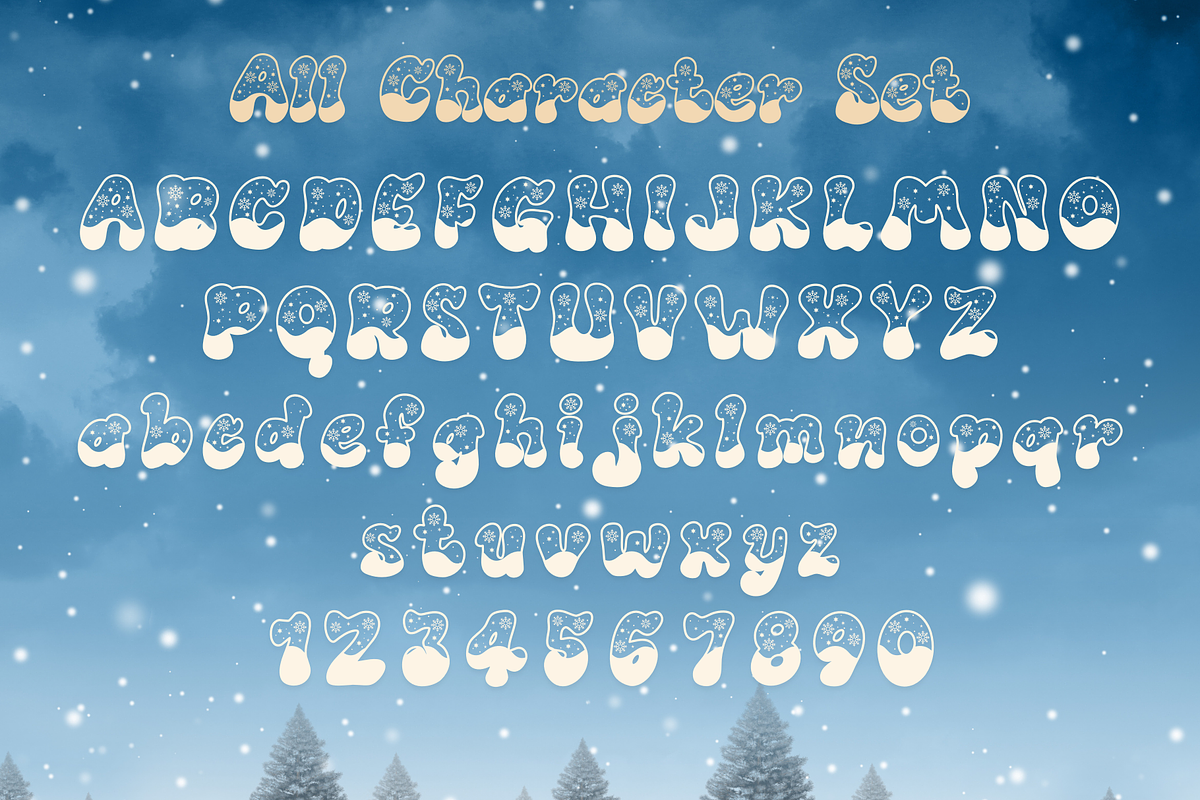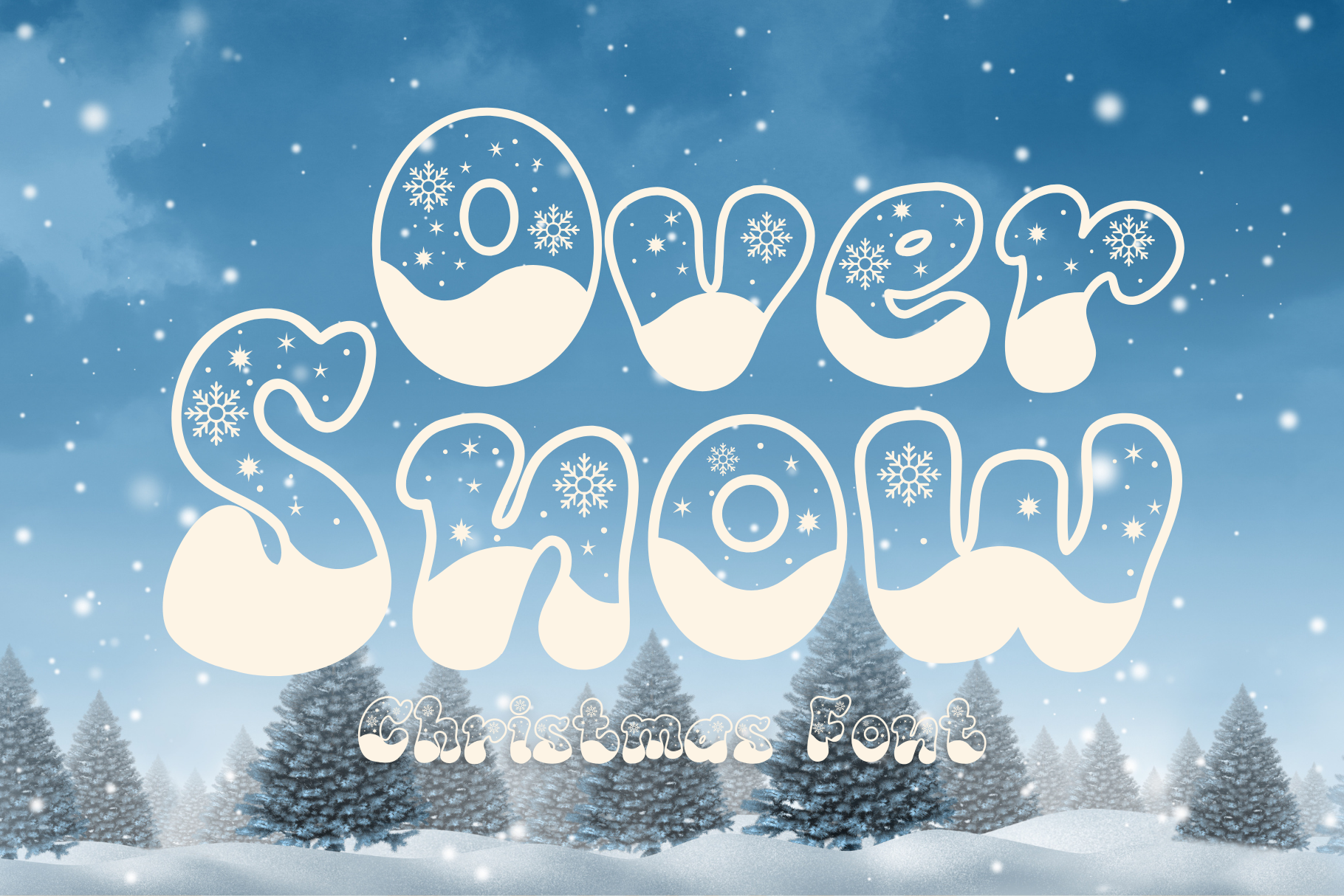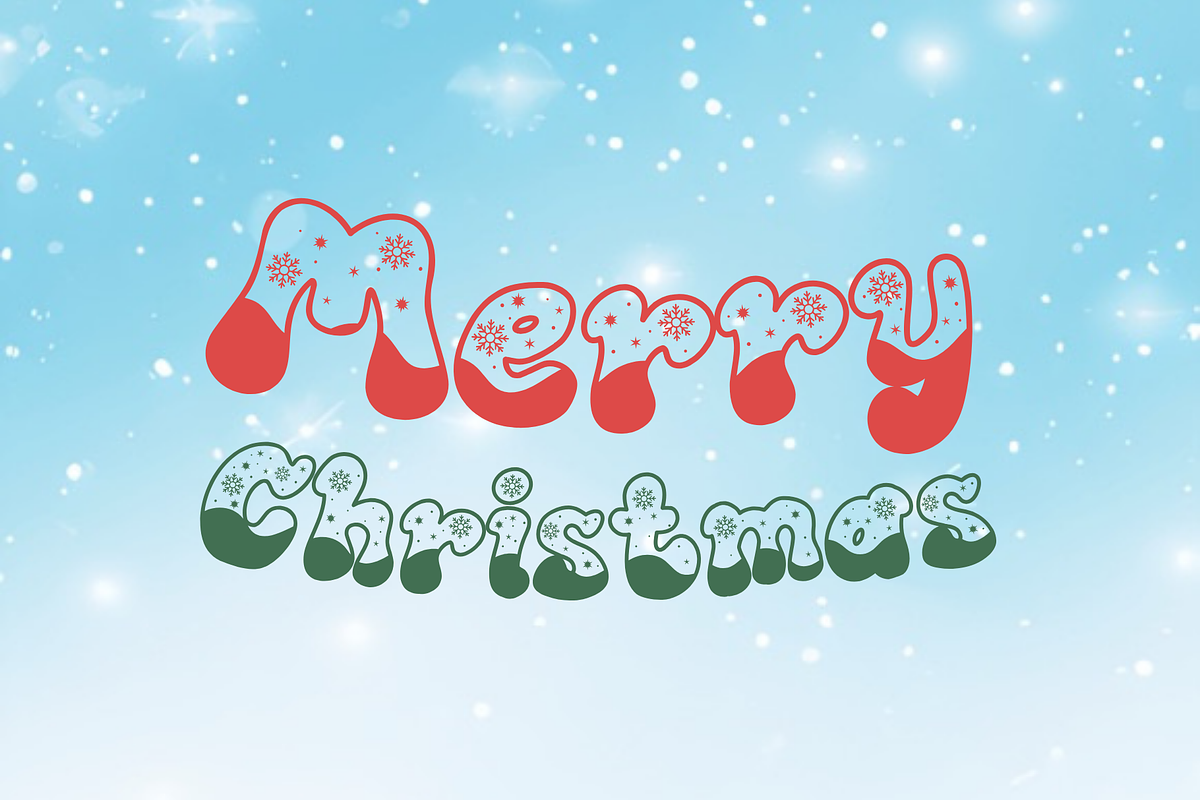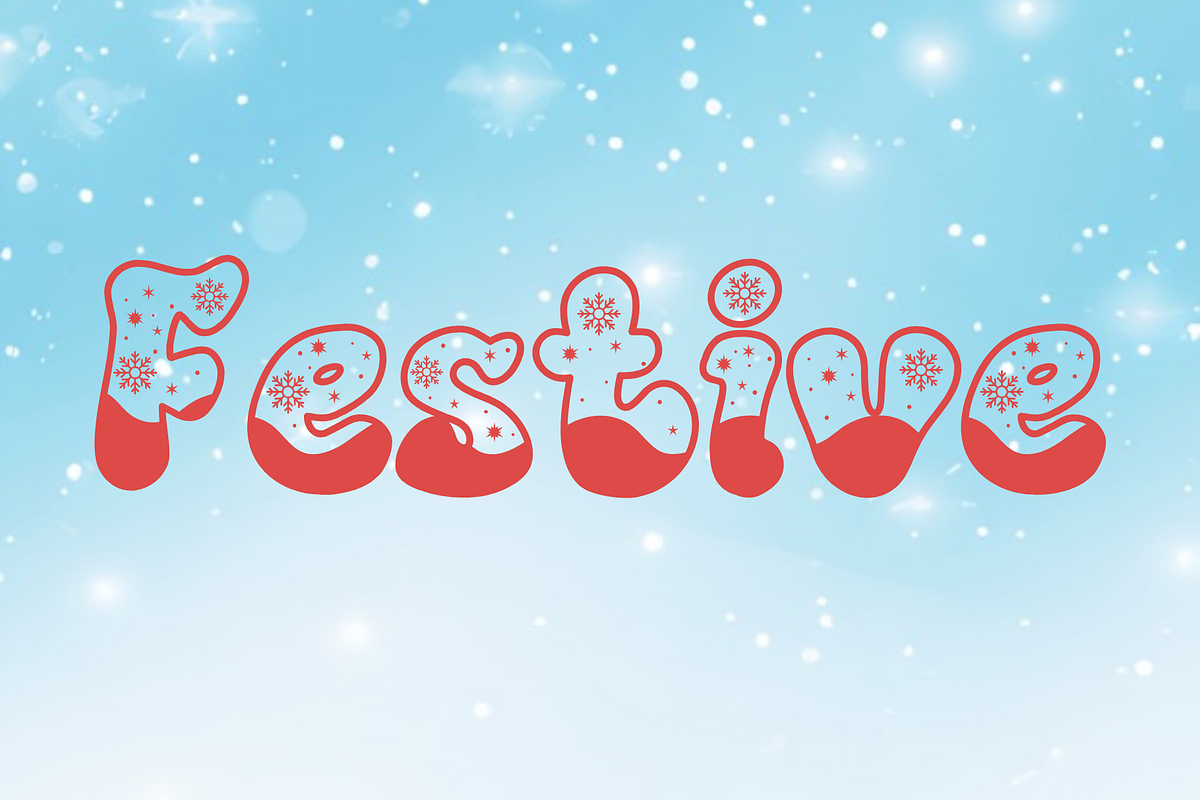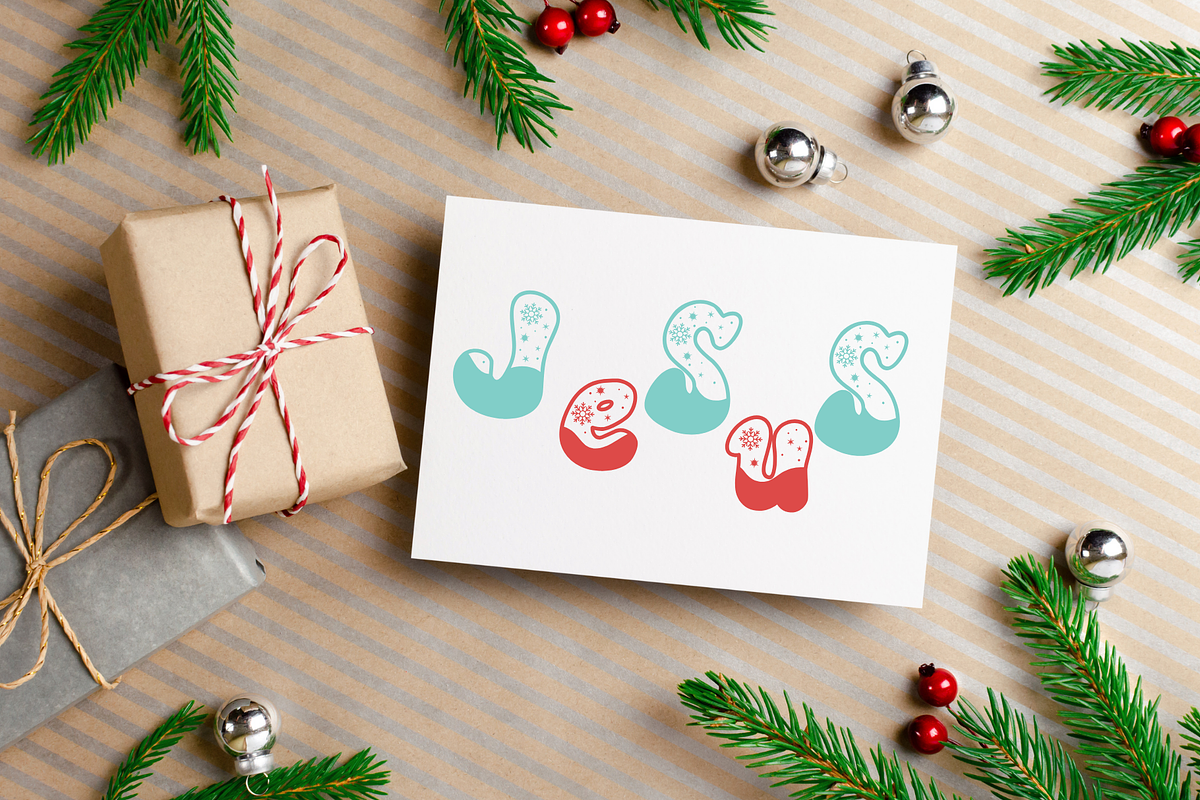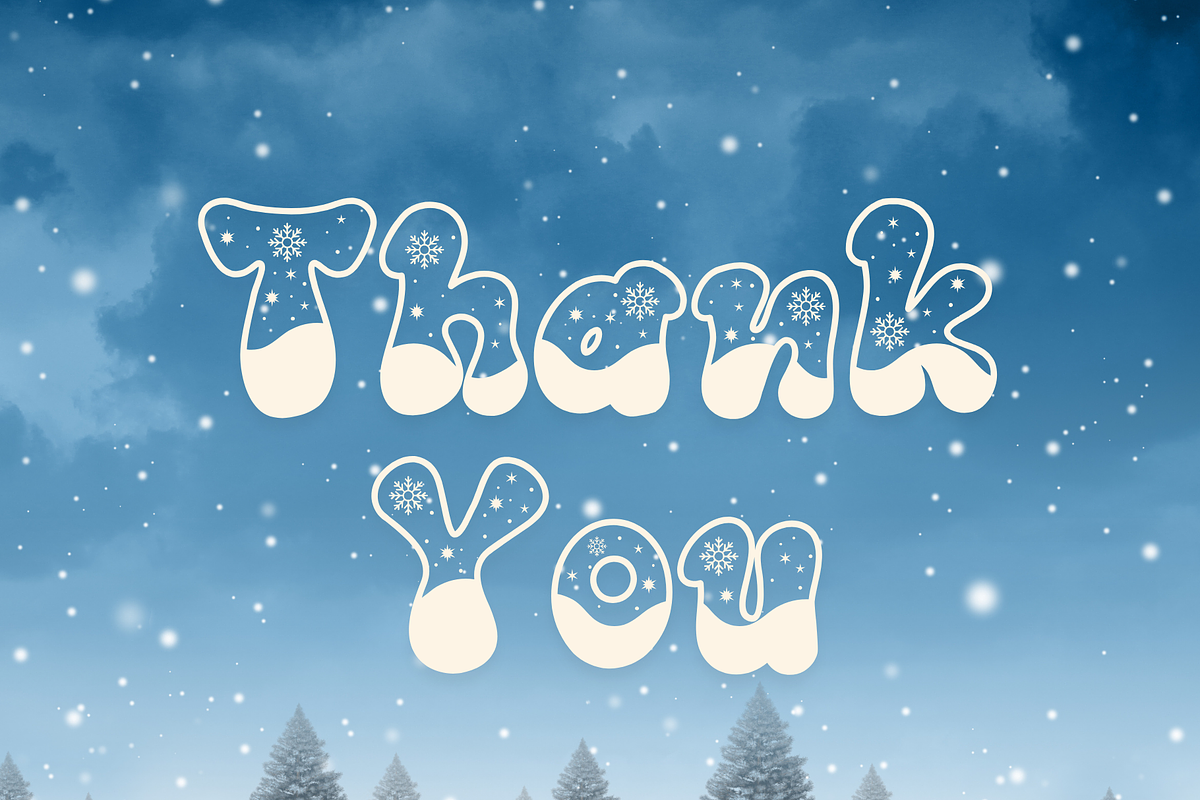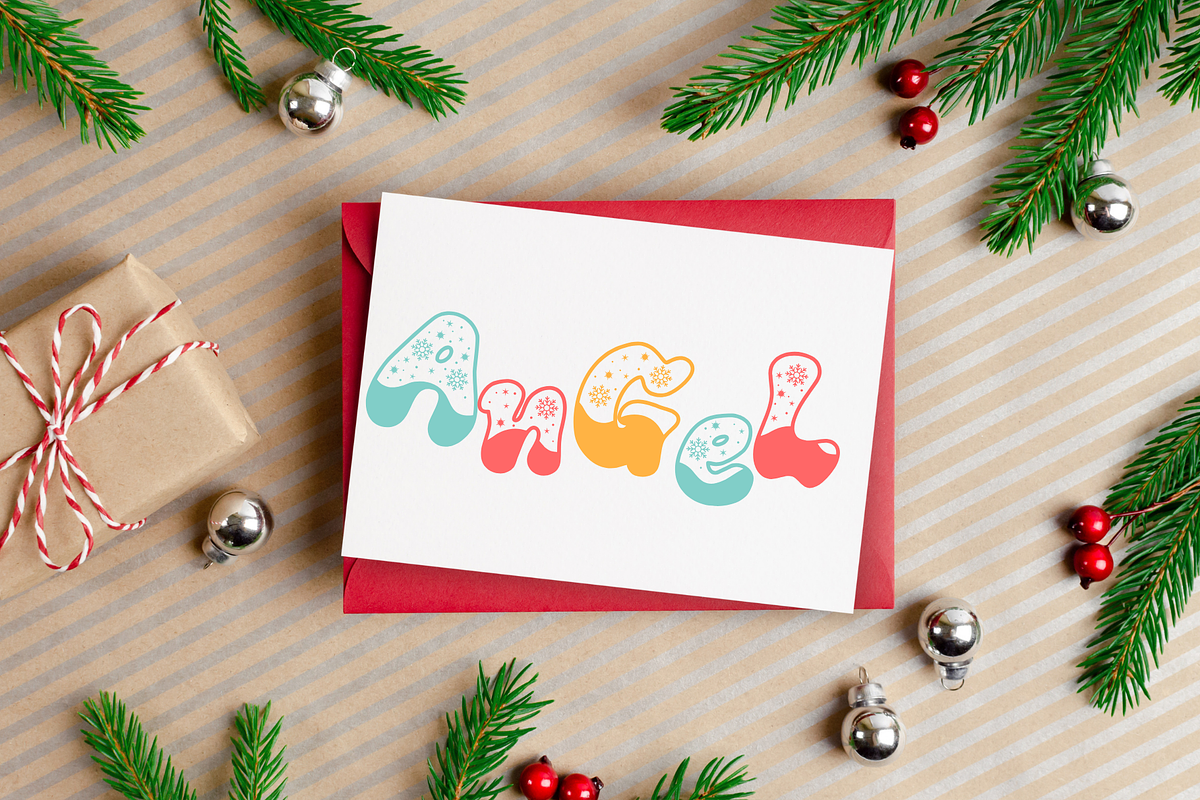
Over Snow is a cute Christmas font
Over Snow is a cute Christmas font. It embodies playfulness and authenticity and is the perfect choice for all your favorite projects, or even for blog posts, logos, branding, ads, invitations, greeting cards, planners, photo albums, decorations, and much more. Add it to any of your designs, and enjoy the results!